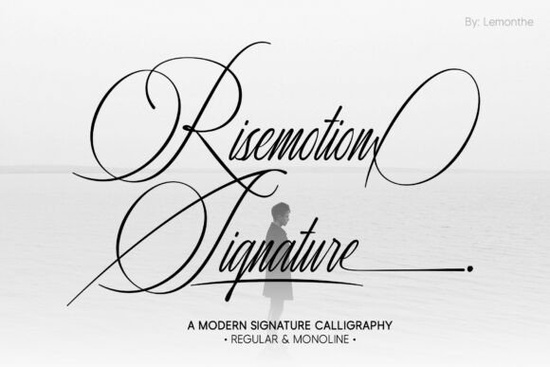
When you need a personal touch for your branding or client projects, finding a script that balances elegance with actual readability can be tough. The Risemotion Signature Font solves this by offering controlled letterforms and consistent spacing. Unlike messy calligraphy that becomes hard to read, this modern signature style keeps connected letterforms stable. It gives you that authentic, hand-drawn feel without sacrificing the visual structure your designs need.
How does the lettering hold up in longer words?
Many signature fonts look great for a single name but fall apart when you type out a full sentence. This font is built with balanced stroke contrast, meaning the thick and thin lines flow naturally without creating visual clutter. The consistent spacing ensures that even when the letters connect, they do not mash together. If you are designing a logo with a longer business name or writing a heartfelt message on packaging, the text remains clear. It avoids the overly loopy traps of bold, heavy script styles that often sacrifice legibility for visual impact.
What types of projects benefit most from this style?
Because it maintains a professional look, you can use it across a wide variety of mediums without worrying about it looking out of place.
- Wedding materials: It pairs beautifully with minimalist layouts. If you need something slightly more romantic for the main invite, you might also look at elegant wedding invitations templates, but this font works perfectly for RSVP cards, menus, and seating charts.
- Brand identity: Small businesses can use it for logos, social media headers, and customer thank-you notes to build a cohesive visual identity.
- Print on demand: It looks fantastic on apparel tags, tote bags, and mugs where a personal signature adds perceived value to the product.
- Editorial layouts: Magazine quotes or blog headers get a nice organic touch that draws the reader's eye.
Can beginners use this for their small business?
Yes. You do not need advanced typography skills to make this font look good. The built-in kerning and spacing do a lot of the heavy lifting for you. If you are used to working with casual everyday handwriting styles, transitioning to this will feel natural, but it offers a much more polished, professional finish. It is also highly versatile for digital graphics. You can adjust the tracking slightly if you want a more relaxed feel, similar to a relaxed weekend vibe, or keep it tight for a formal signature look. Just make sure to check the official product page for the full character set and ligature options before you start designing.
Should I use ligatures and alternates?
This font includes decorative elements and connected letterforms that activate automatically in most design software. However, for a cleaner look on small packaging or digital screens, you might want to turn off the standard ligatures. This keeps the baseline stable and prevents the decorative swashes from overlapping with other design elements or getting cut off at the edges of your canvas.
Quick checklist for using signature fonts in your next project:
- Test at actual size: Always preview your text at the exact size it will be printed or displayed to ensure the thin strokes do not disappear.
- Limit your palette: Pair this script with a simple, clean sans-serif for body text to let the signature style stand out clearly.
- Check the background: Light fonts on dark backgrounds can cause the thin lines to blur; use a solid, high-contrast background for the best results.
- Use ligatures wisely: Turn them on for large headings and off for smaller sub-text to maintain readability.
Take a few minutes to type out your most common phrases, like your business name or a standard greeting, to see how the connected letterforms interact before finalizing your layout.